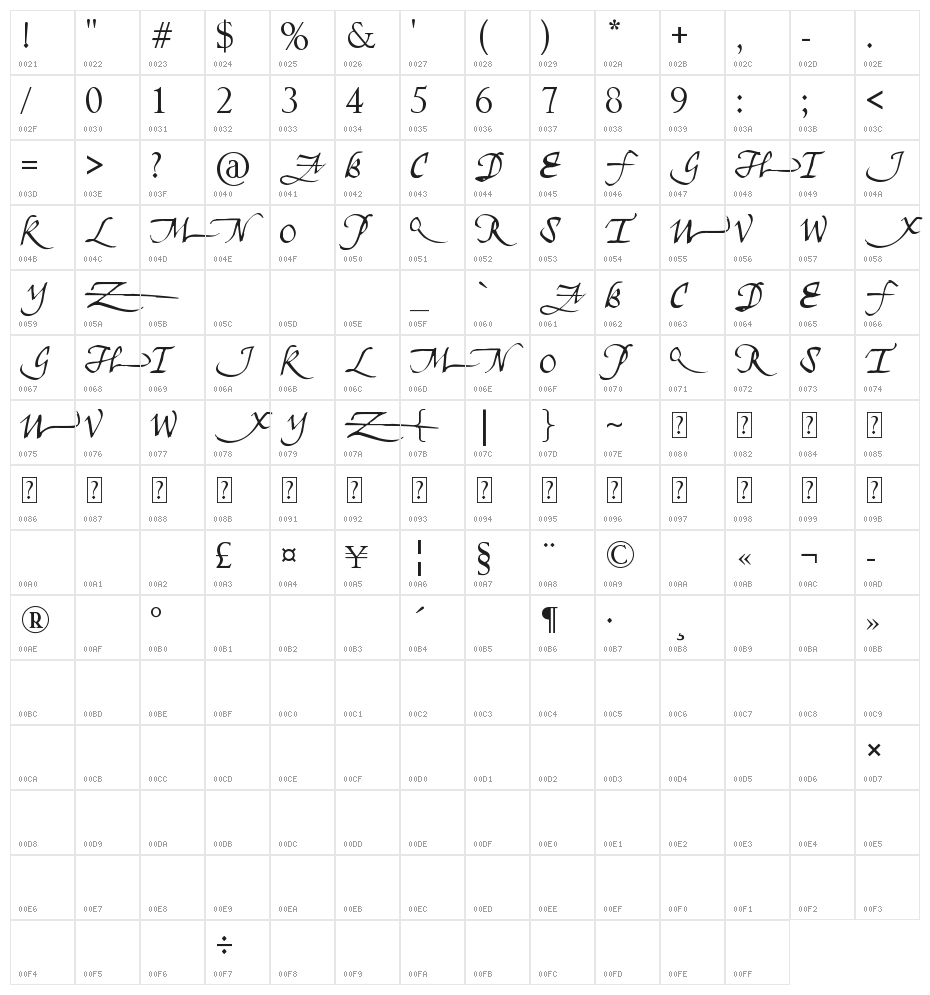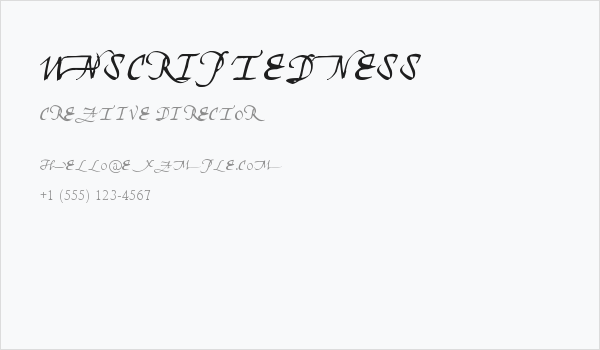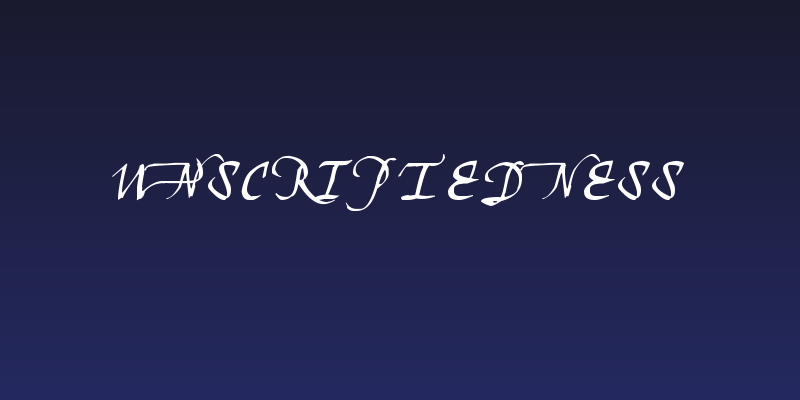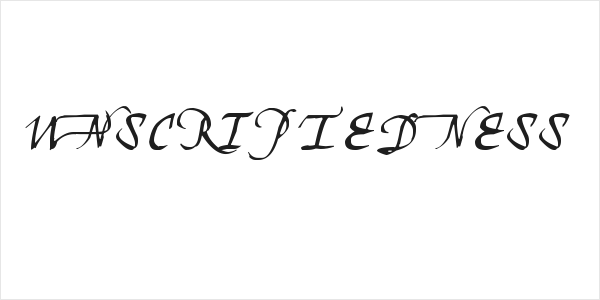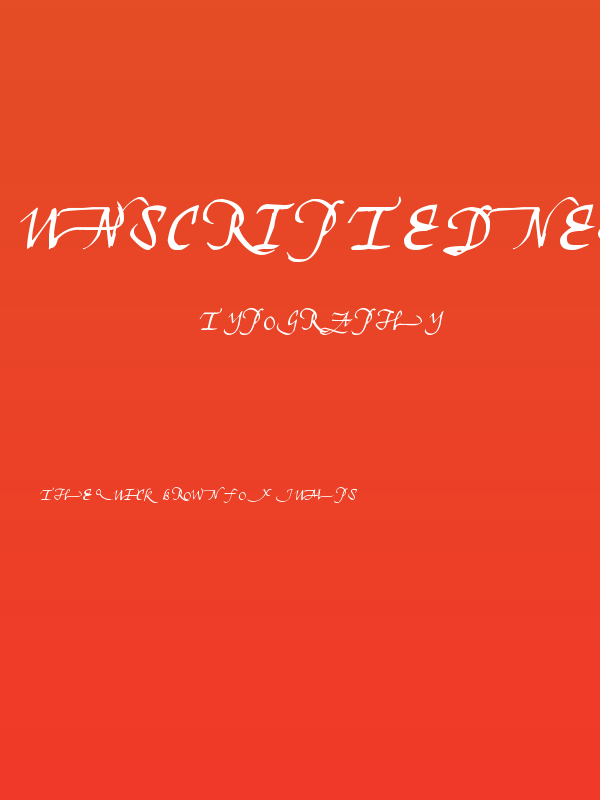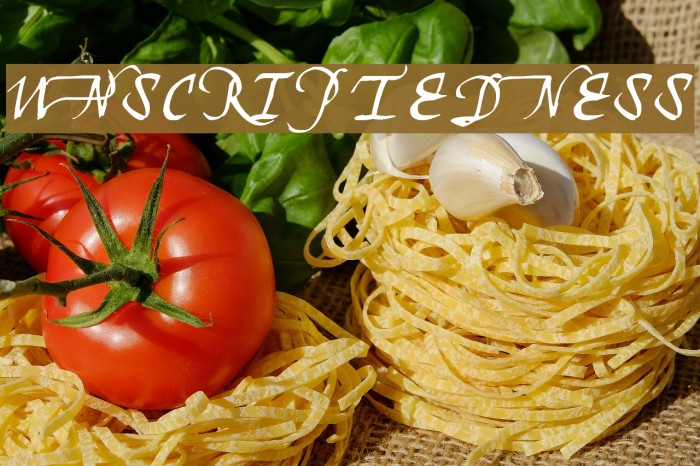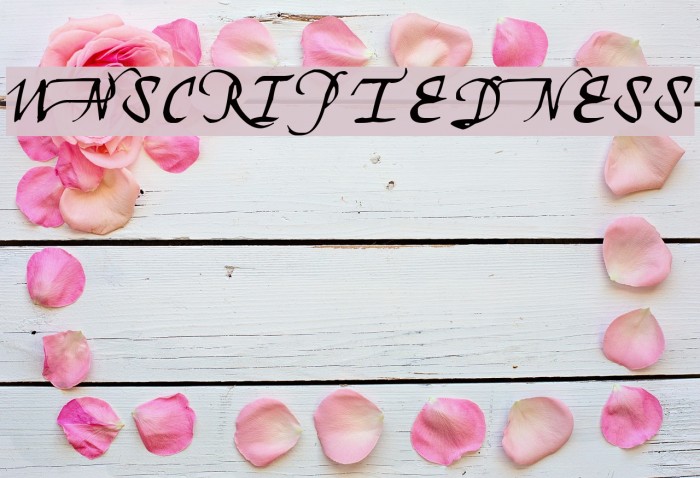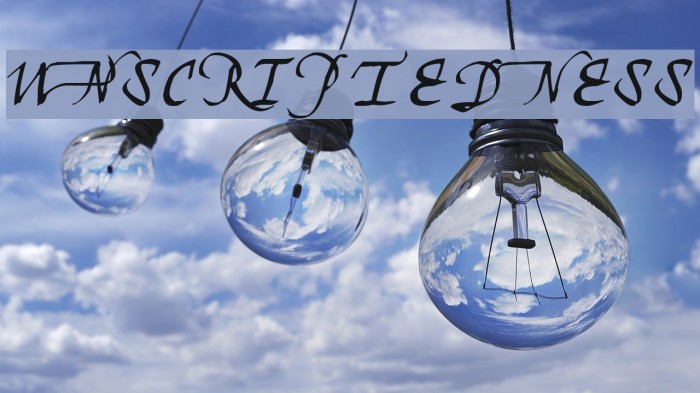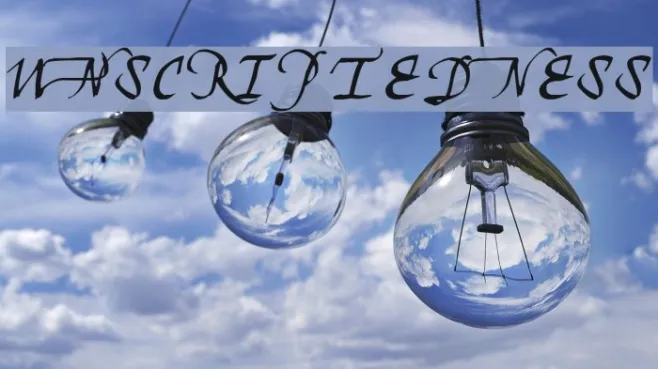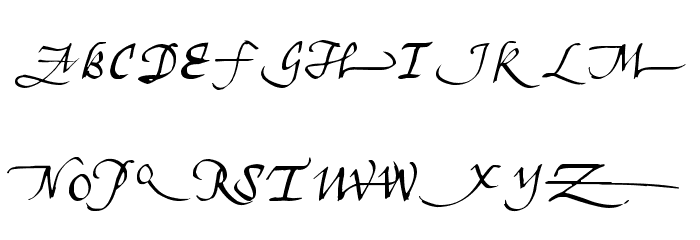
Unscriptedness Font
Unscriptedness Description
This font exhibits a classic and elegant script style, characterized by its flowing, cursive letterforms. The uppercase letters are ornate with intricate flourishes, while the lowercase letters maintain a consistent, smooth flow. The numerals are bold and slightly more structured, providing a nice contrast to the letters. Special characters are designed with similar attention to detail, ensuring they blend seamlessly with the overall aesthetic. The font's design is reminiscent of traditional calligraphy, making it suitable for formal and decorative applications.
| Proposed Projects | Ideal for wedding invitations, formal event programs, elegant branding, and decorative headings. |